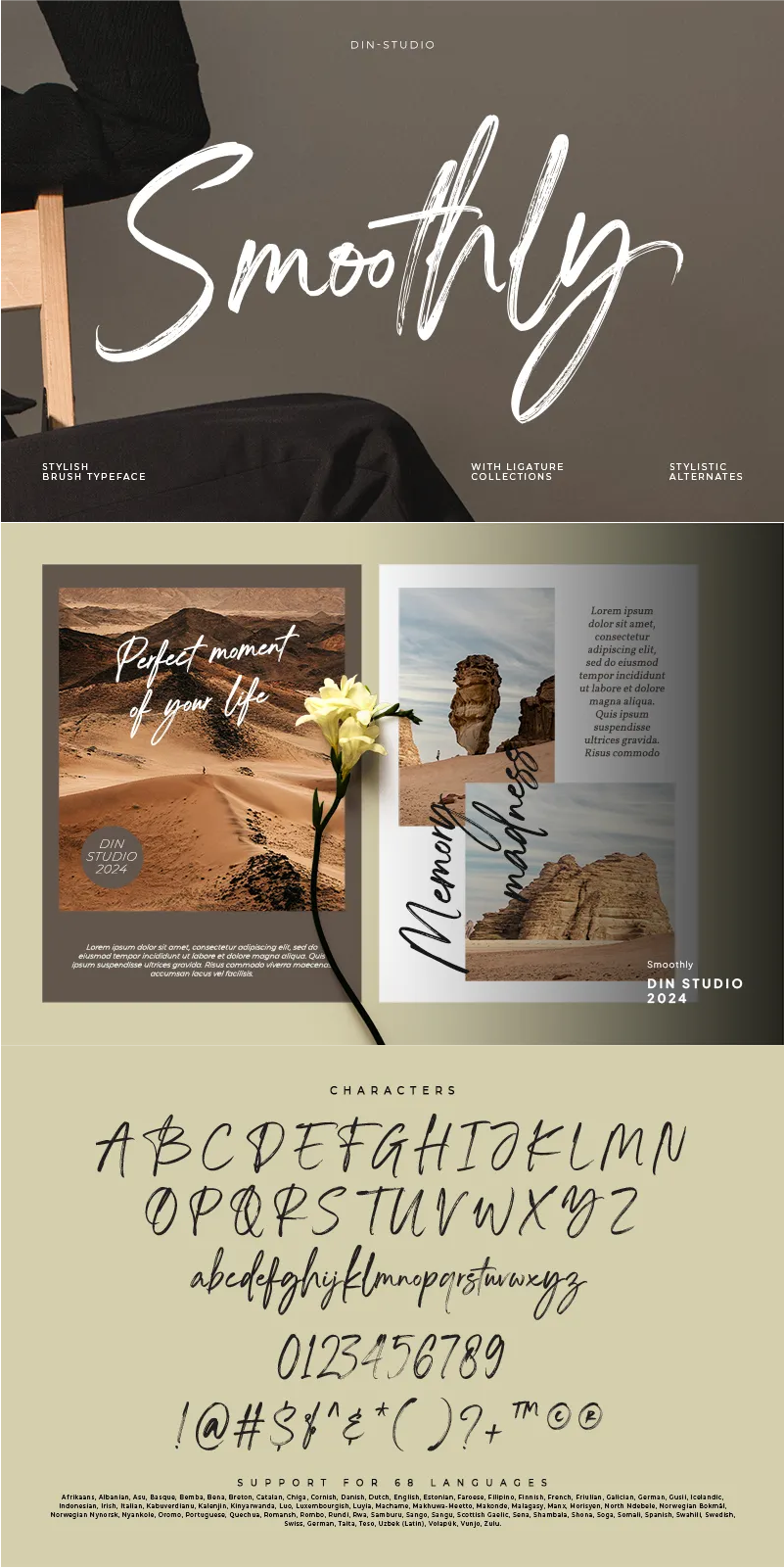
Smoothly Font
About Smoothly
Smoothly is a captivating handwritten font that exudes a sense of effortless charm and grace. Crafted with detailed brushes, each letter flows seamlessly into the next, creating a beautifully connected script that is as fluid as it is elegant. One of Smoothly defining characteristics is its unequal proportions, which give the font a unique and dynamic appearance.
This variation in letter sizes adds a sense of movement and rhythm to your text, enhancing its visual appeal and drawing the viewer’s eye along the page. With its detailed brushwork and connected letters, Smoothly brings a sense of authenticity and warmth to your designs. In addition, enjoy the features here.
Smoothly fits in headlines, logos, posters, flyers, branding materials, greeting cards, print media, editorial layouts, and many more designs. Find out more ways to use this font by taking a look at the font preview.